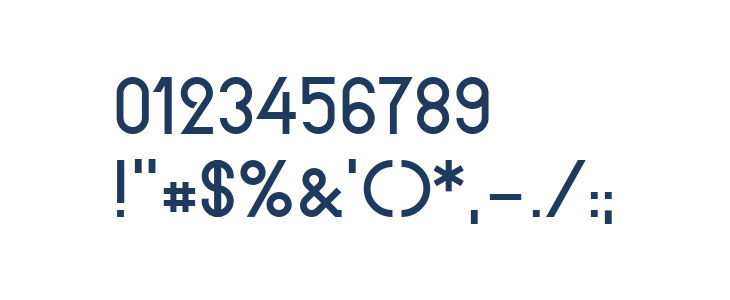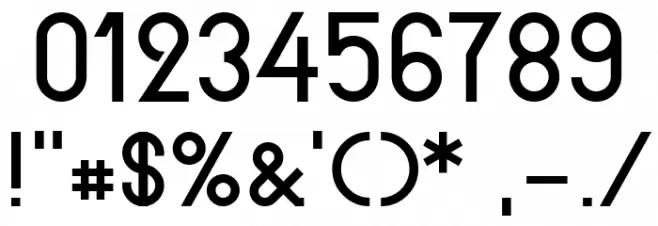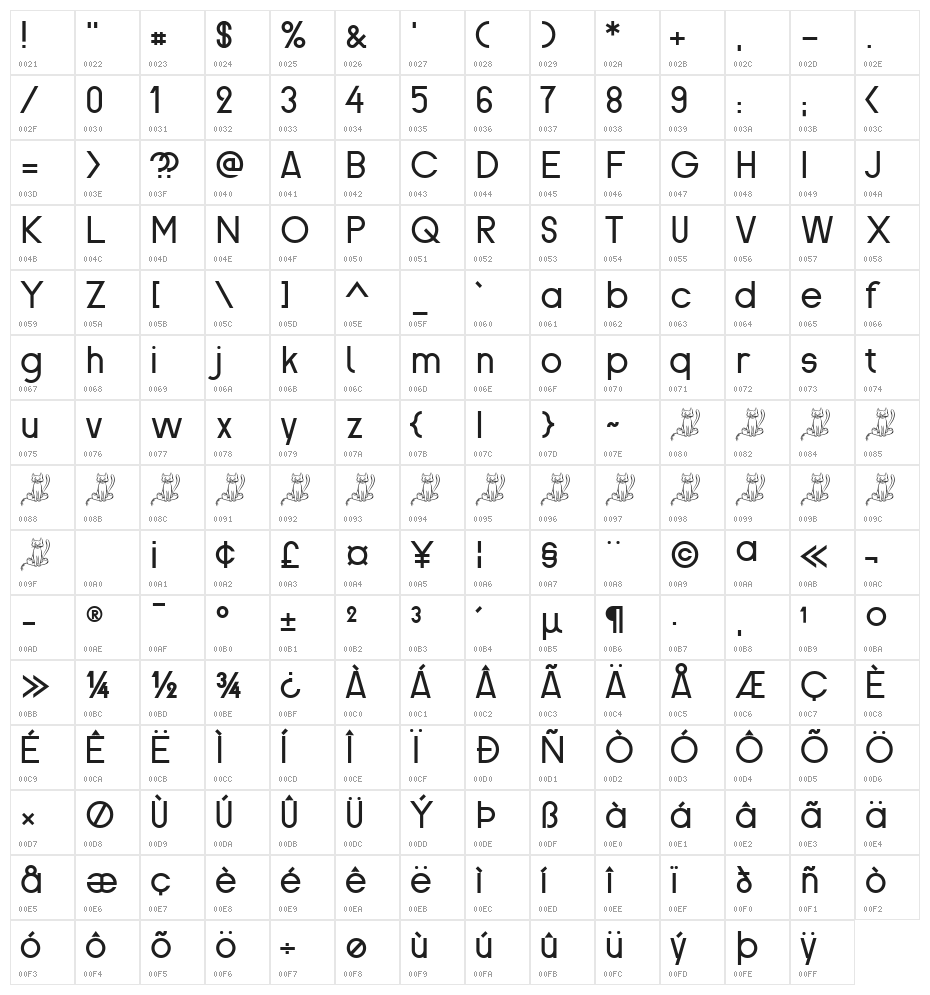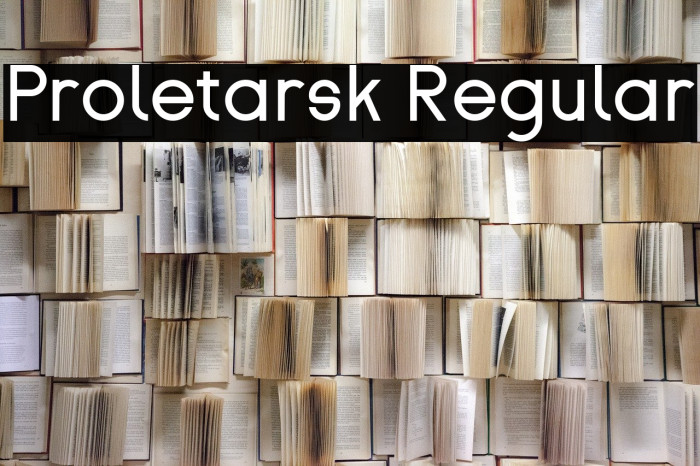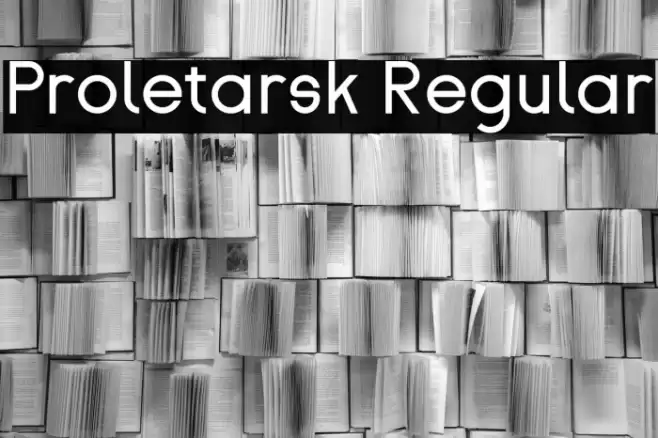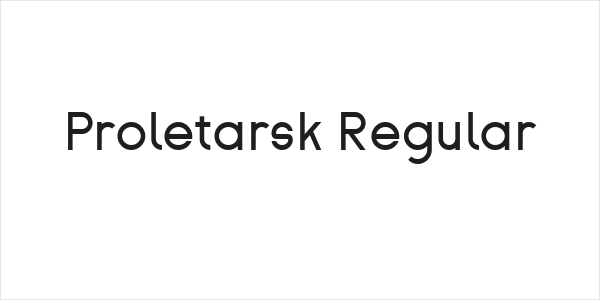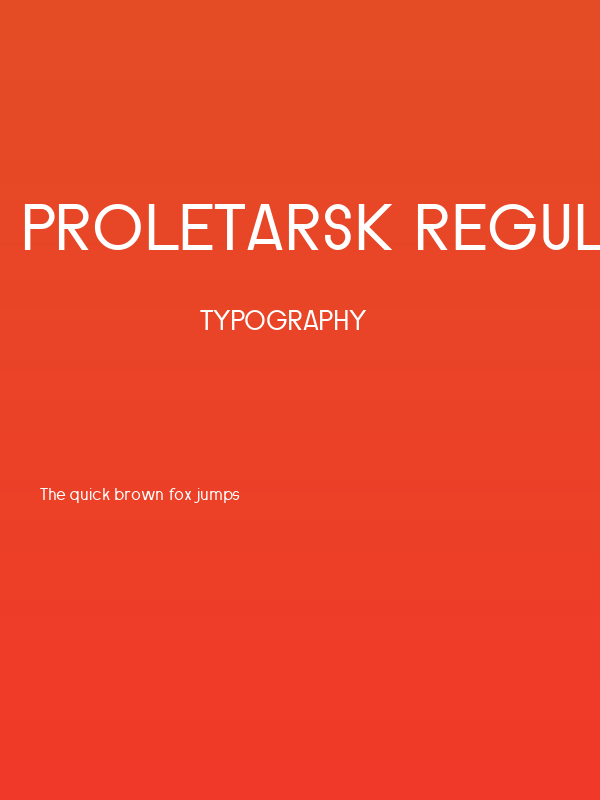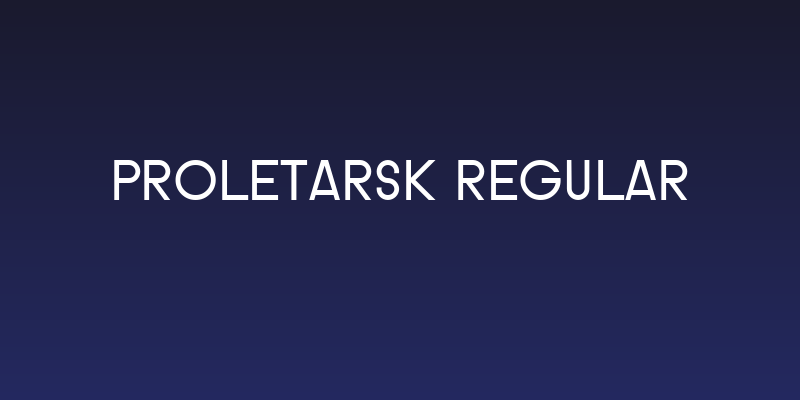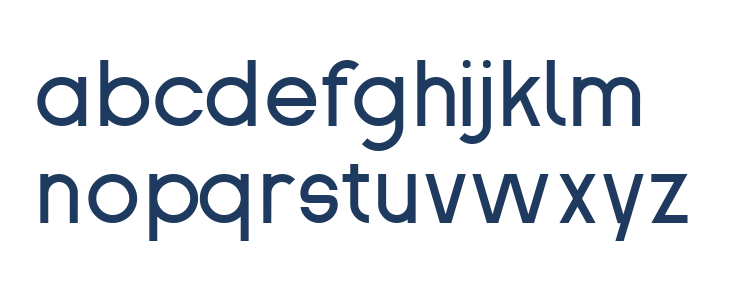
Proletarsk Regular Font
Proletarsk Regular Description
This font features a clean and modern sans-serif design, characterized by its geometric shapes and uniform stroke widths. The uppercase letters are bold and assertive, while the lowercase letters maintain a consistent roundness, offering a harmonious balance. The numerals are clear and easy to read, making them suitable for various applications. Special characters are well-defined, adding versatility to the font. Its simplicity and clarity make it ideal for both digital and print media, ensuring readability across different sizes and formats.